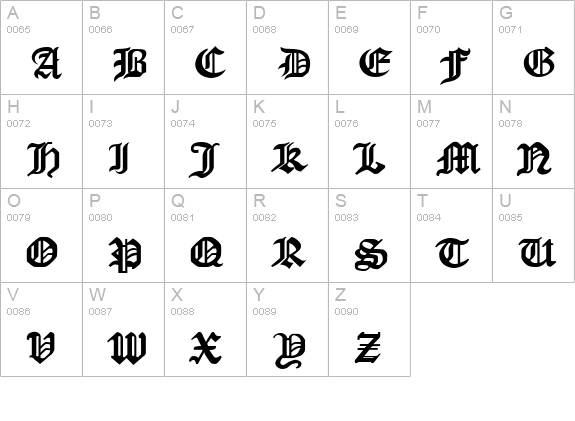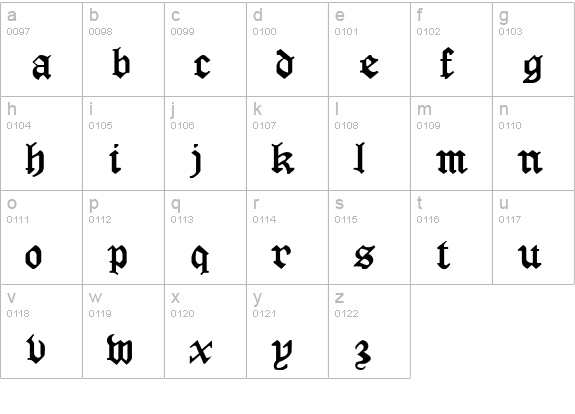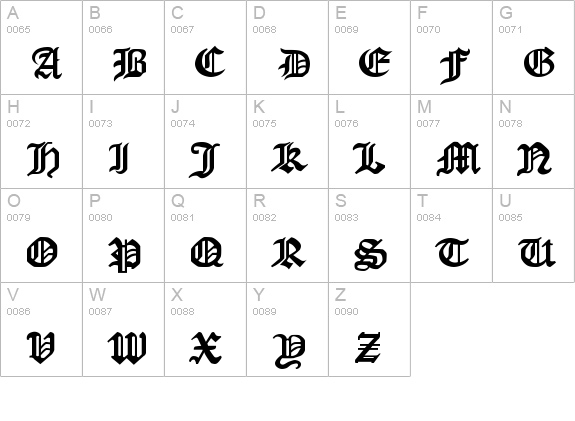
ManuscriptExtended Normal Font Details
ManuscriptExtended Normal is the standard, neutral variant in the ManuscriptExtended typeface family \xE2\x80\x94 well suited to general body text, paragraphs, and standard typographic work.
ManuscriptExtended Normal font is a remarkable typeface that combines elegance and readability, making it the perfect choice for various design projects. With its clean lines and sophisticated curves, this font adds a touch of professionalism to any text. The ManuscriptExtended Normal font is meticulously crafted to provide optimal legibility, ensuring that your message is conveyed effortlessly. Whether you're designing a website, creating a logo, or working on a print project, this font will elevate your work to new heights. One of the best things about ManuscriptExtended Normal font is that it is freely available to download at FontsMarket.com. This means that you can unleash your creativity without worrying about any additional costs. It's a fantastic opportunity to access a high-quality font that will enhance your designs without breaking the bank. The versatility of ManuscriptExtended Normal font is another reason why it's a popular choice among designers. Whether you're aiming for a formal or casual look, this font can adapt to your needs effortlessly. From invitations to brochures, from posters to social media graphics, ManuscriptExtended Normal font will make your content stand out. In addition to its aesthetic appeal, ManuscriptExtended Normal font also offers excellent readability, even in smaller sizes. This makes it an excellent choice for body text or lengthy paragraphs, ensuring that your audience can engage with your content seamlessly. Overall, ManuscriptExtended Normal font is an exceptional typeface that combines elegance, readability, and versatility. With its freely available download at FontsMarket.com, you can enhance your designs with this high-quality font without any additional costs. So go ahead and unleash your creativity with ManuscriptExtended Normal font today!